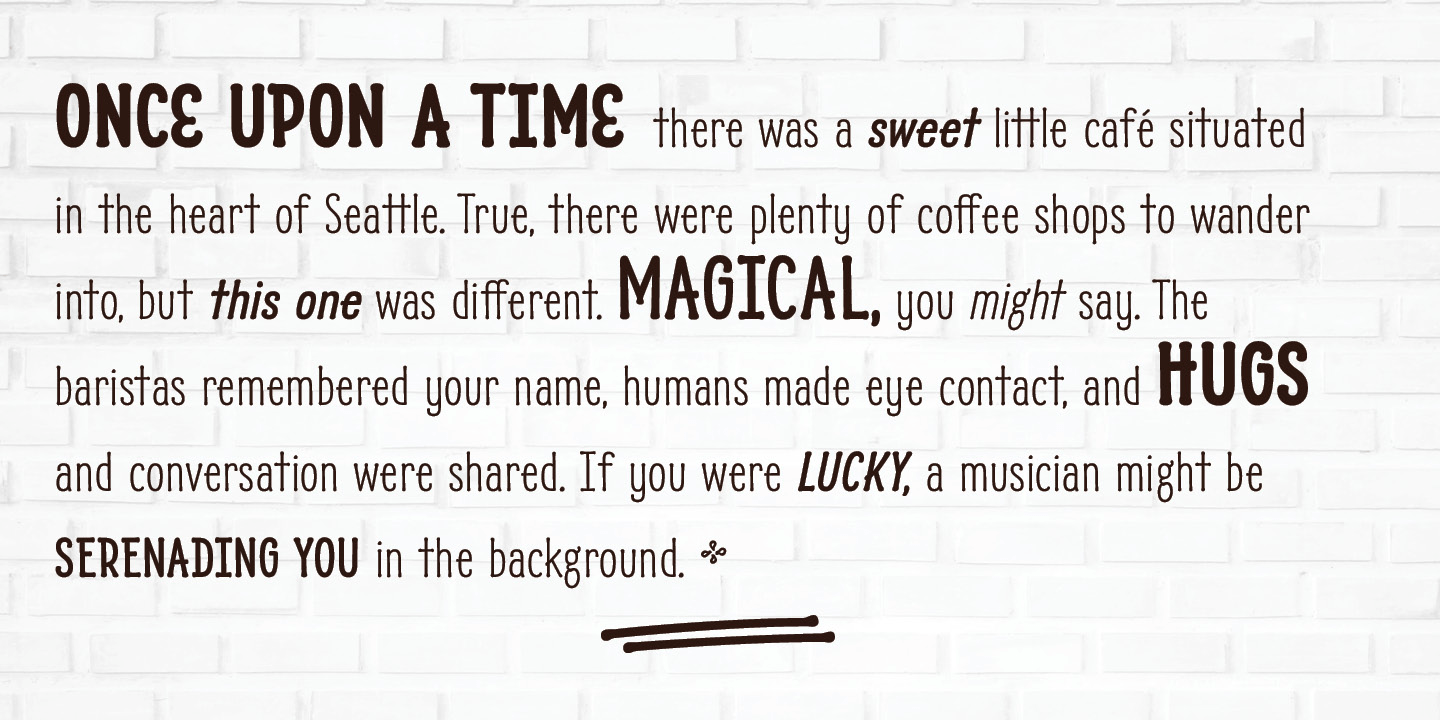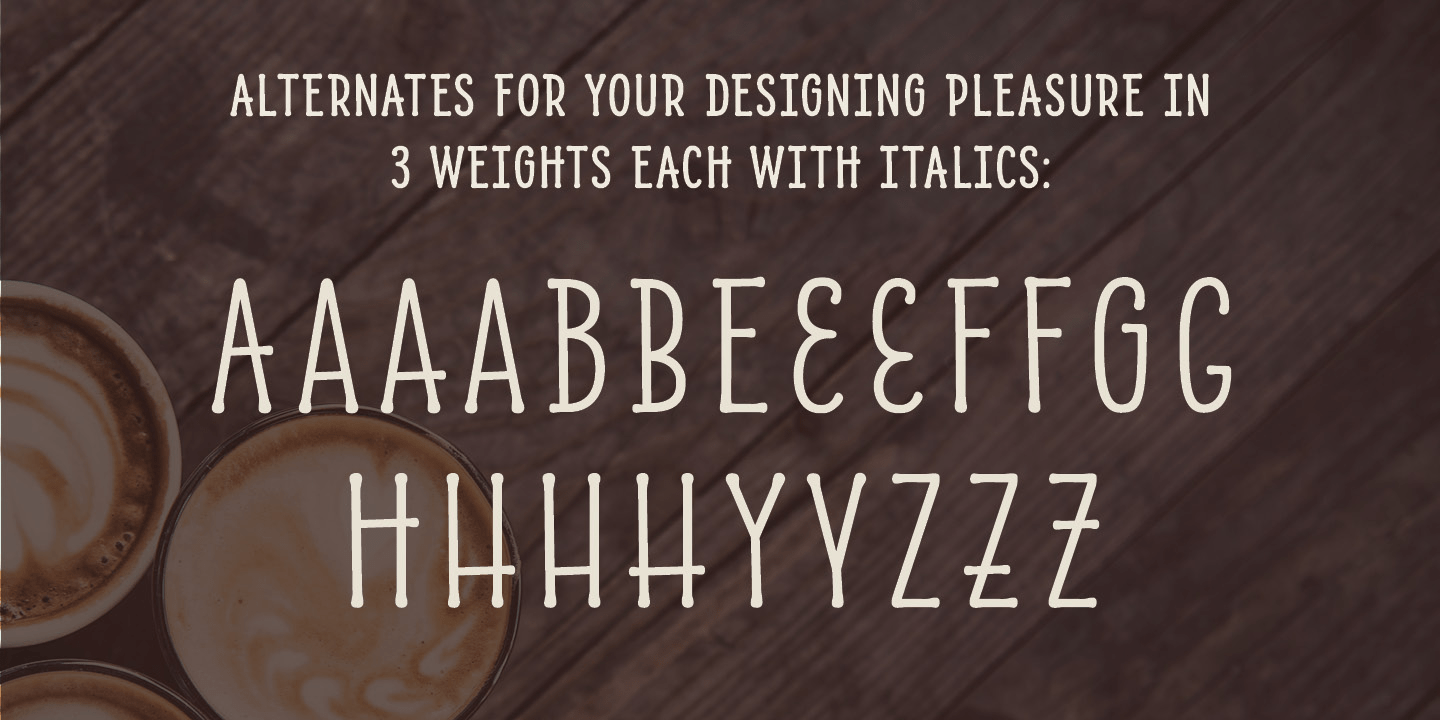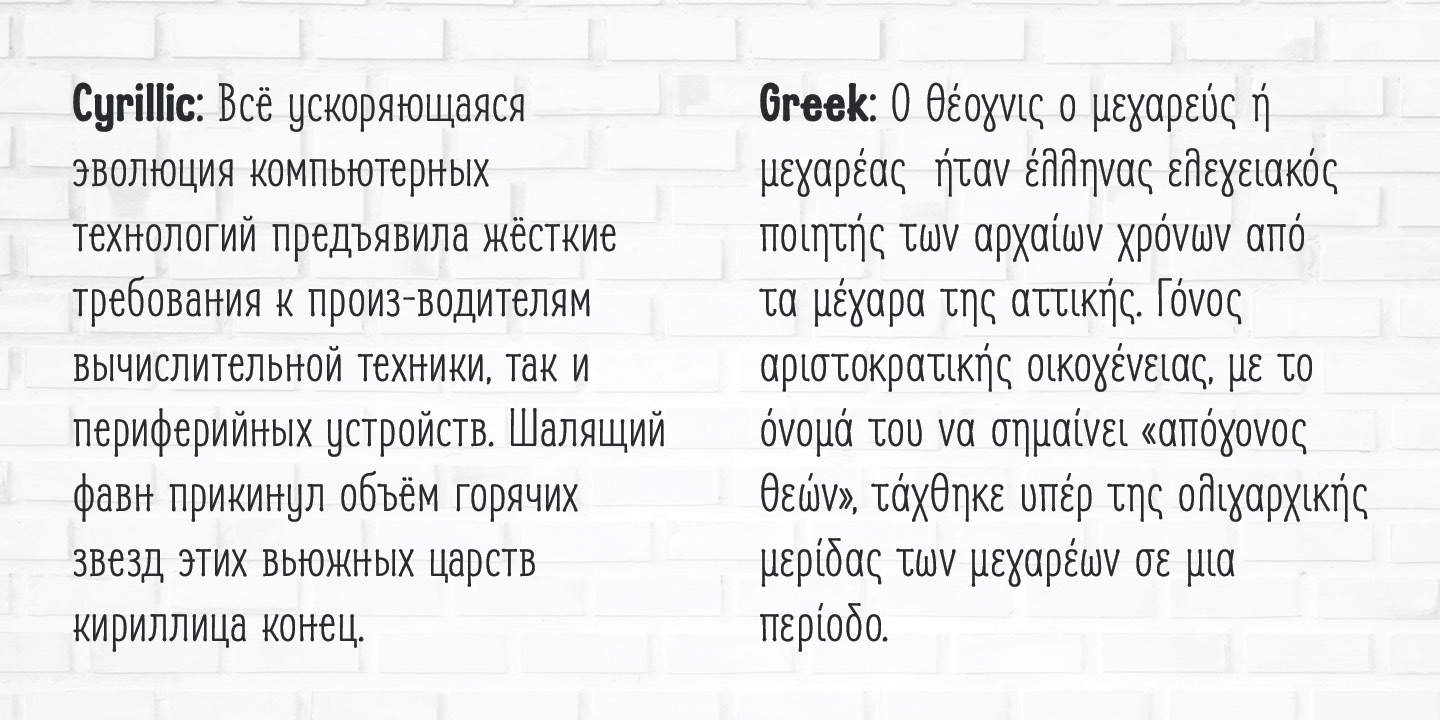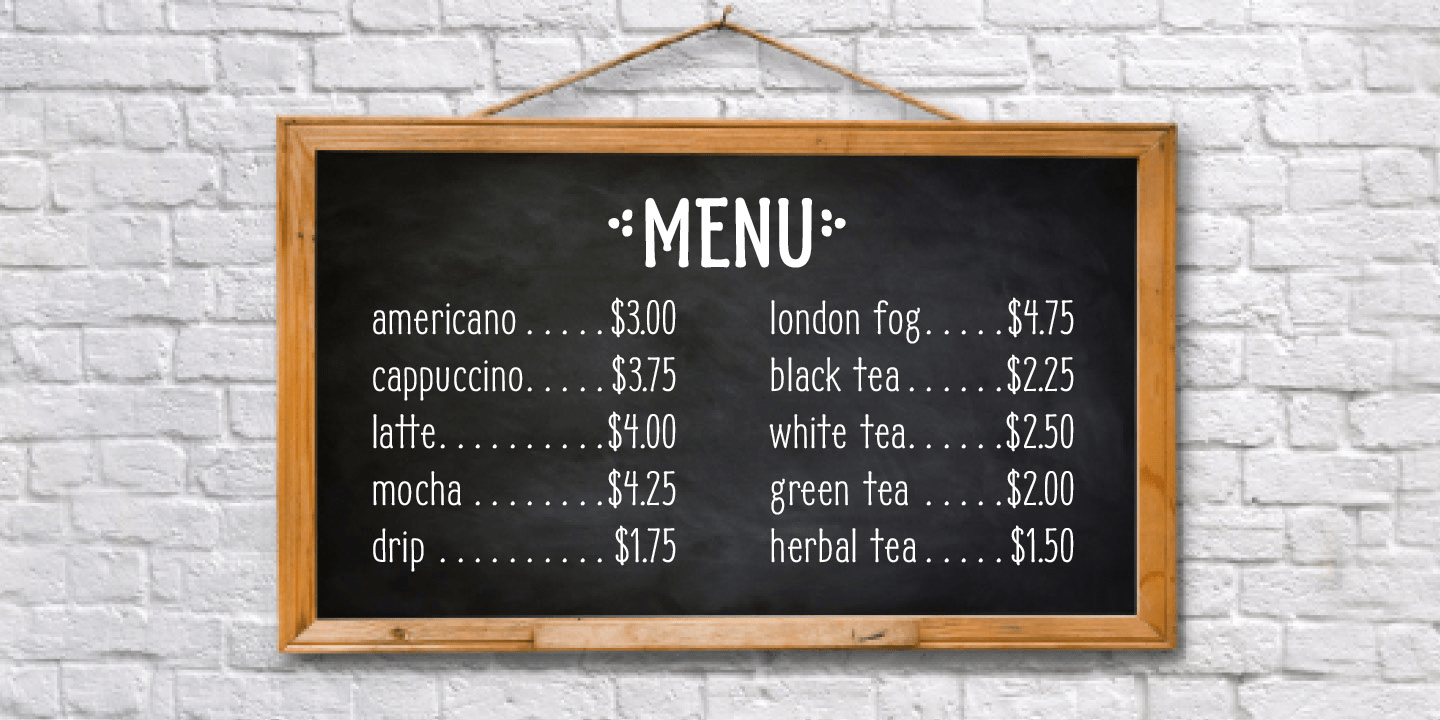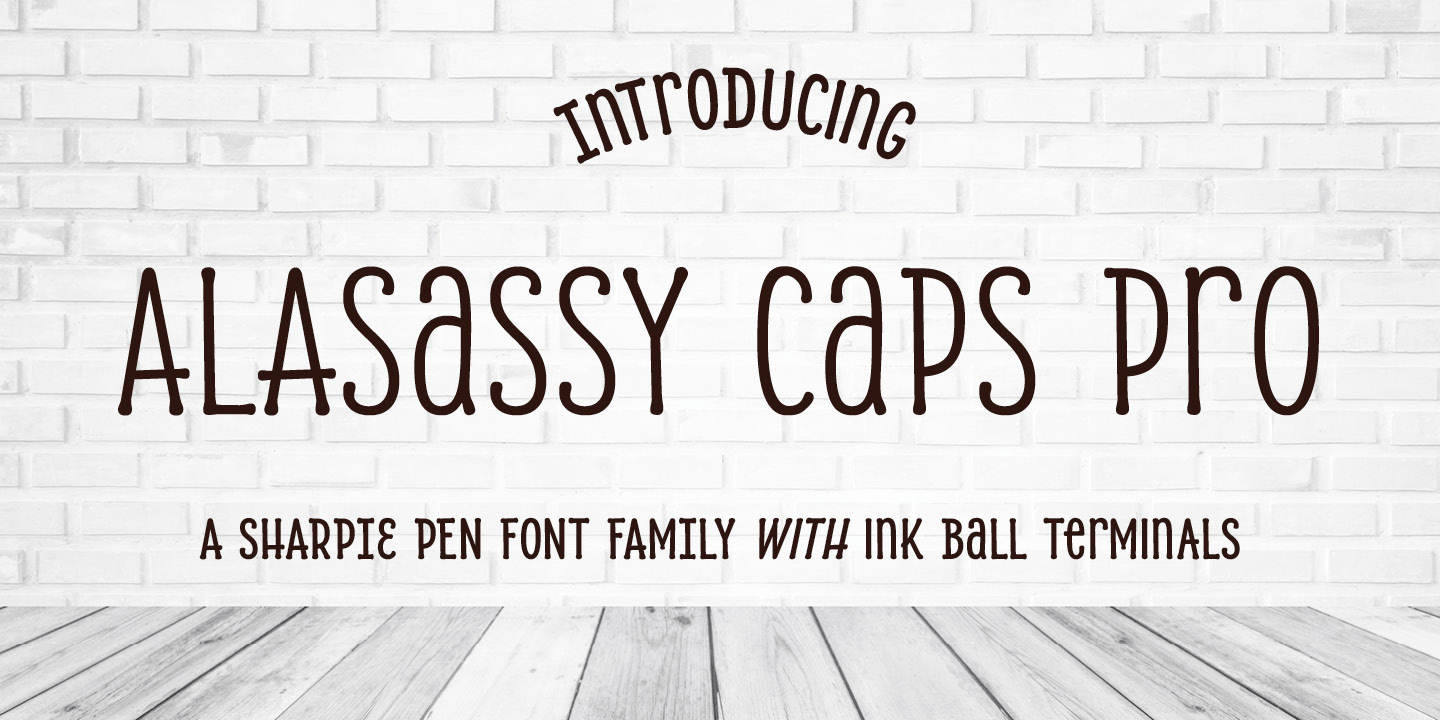
Alasassy Pro
Font Family by Leksen Design
Alasassy is an informal typeface that is designed to liven up logos, headlines, informal signs, advertising, book or report covers, or packaging.  It’s narrow and looks hand-written, as though it had been drawn with a felt-tip pen that left little ink balls on the ends of letters. Alasassy includes both lowercase and uppercase letters, with alternate characters that mix high and low crossbars, giving the design versatility and a whimsical feeling.